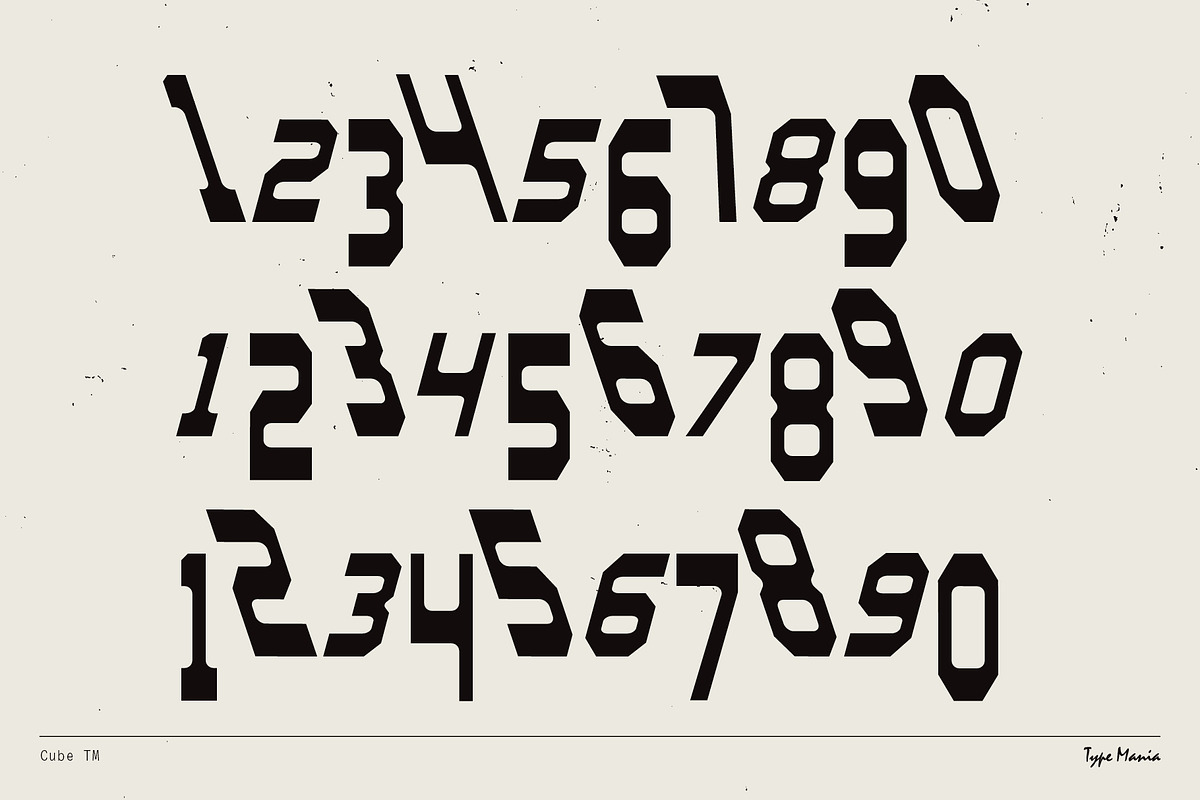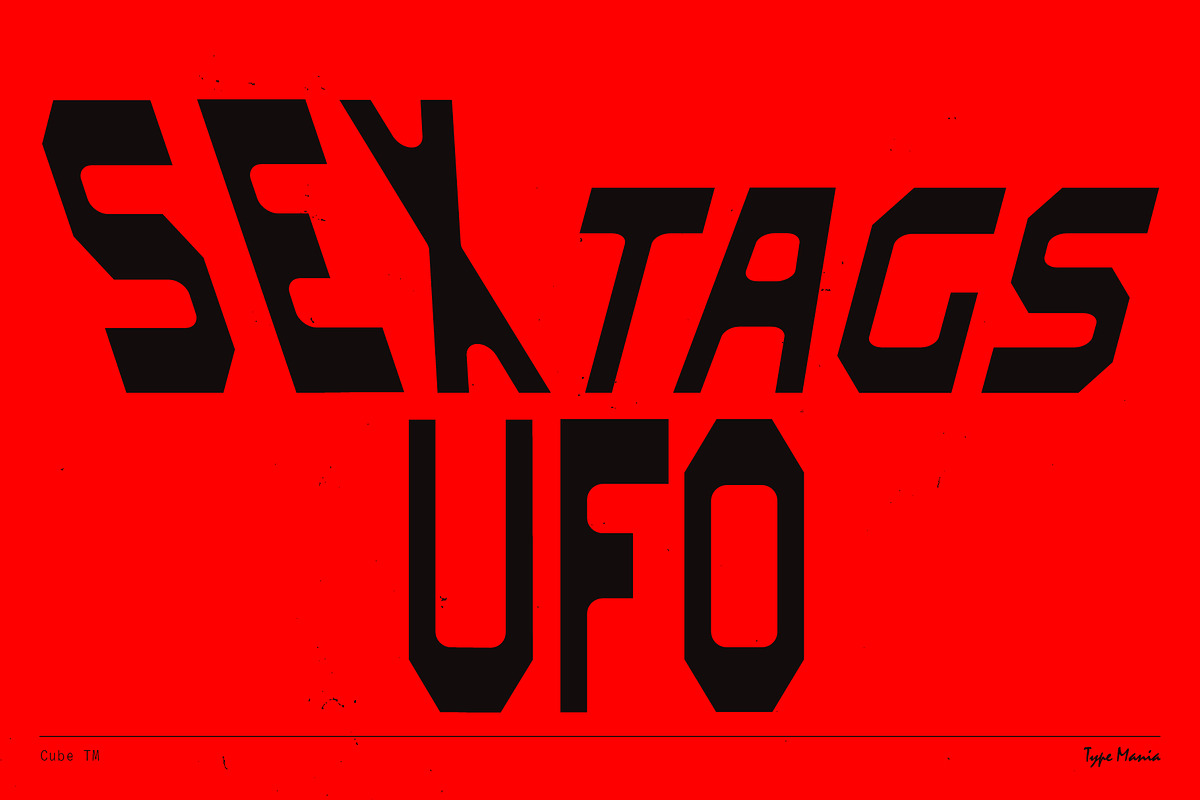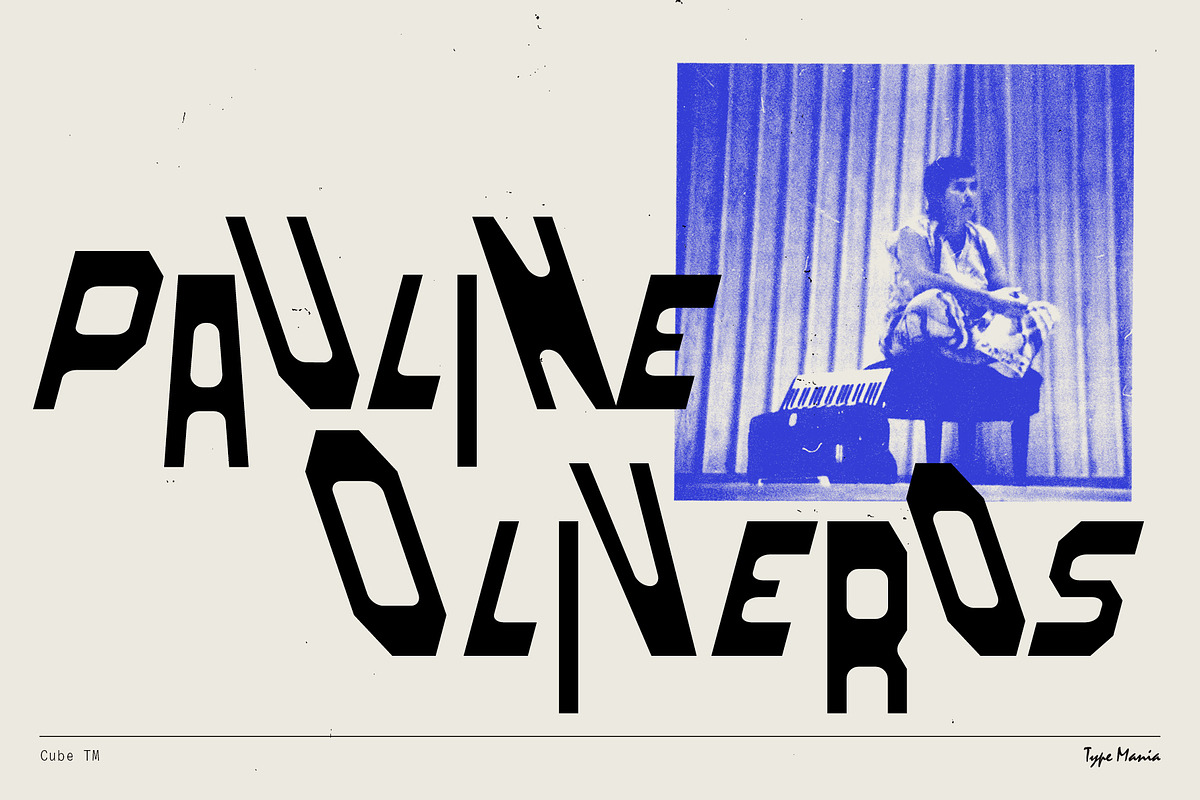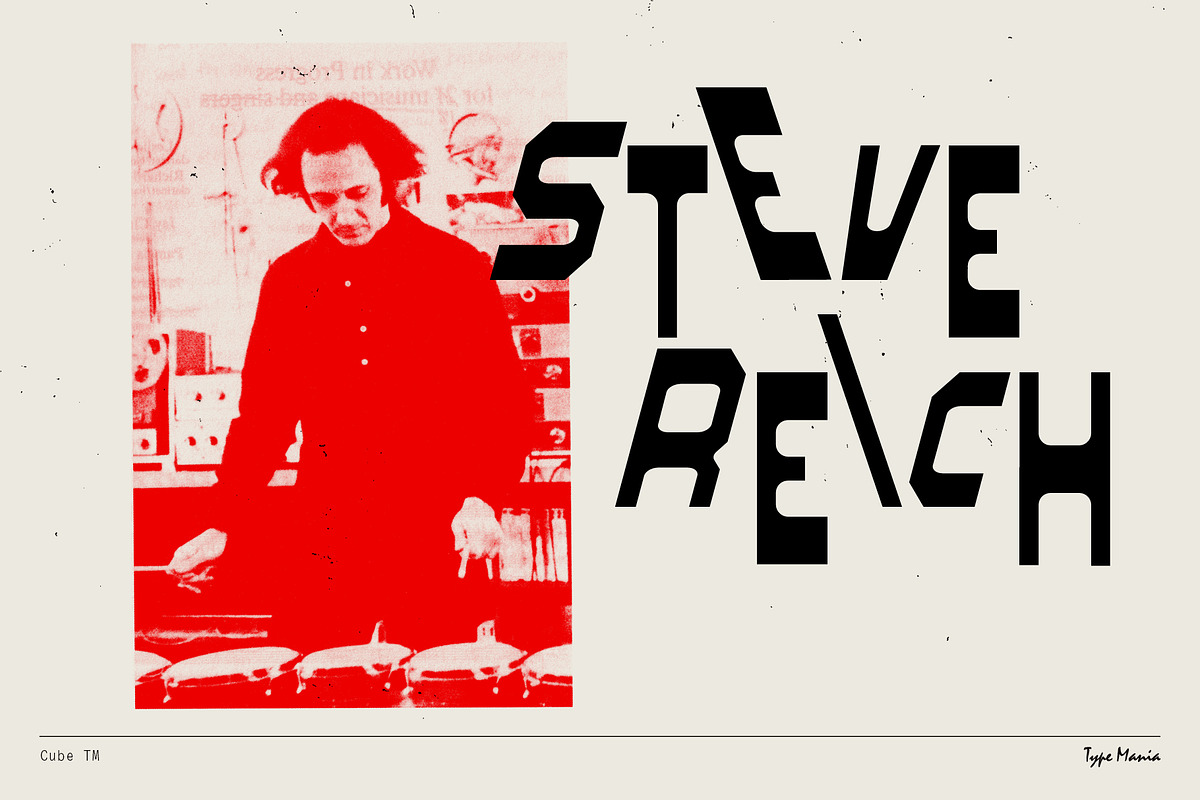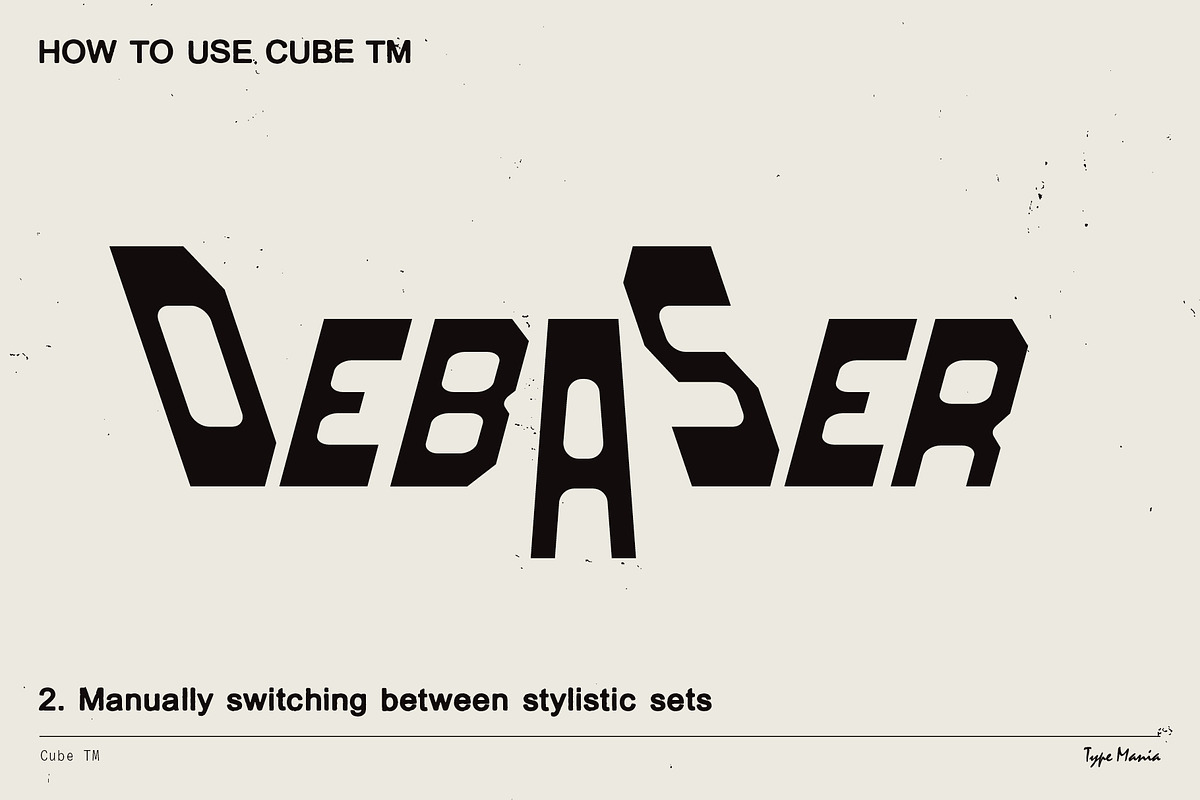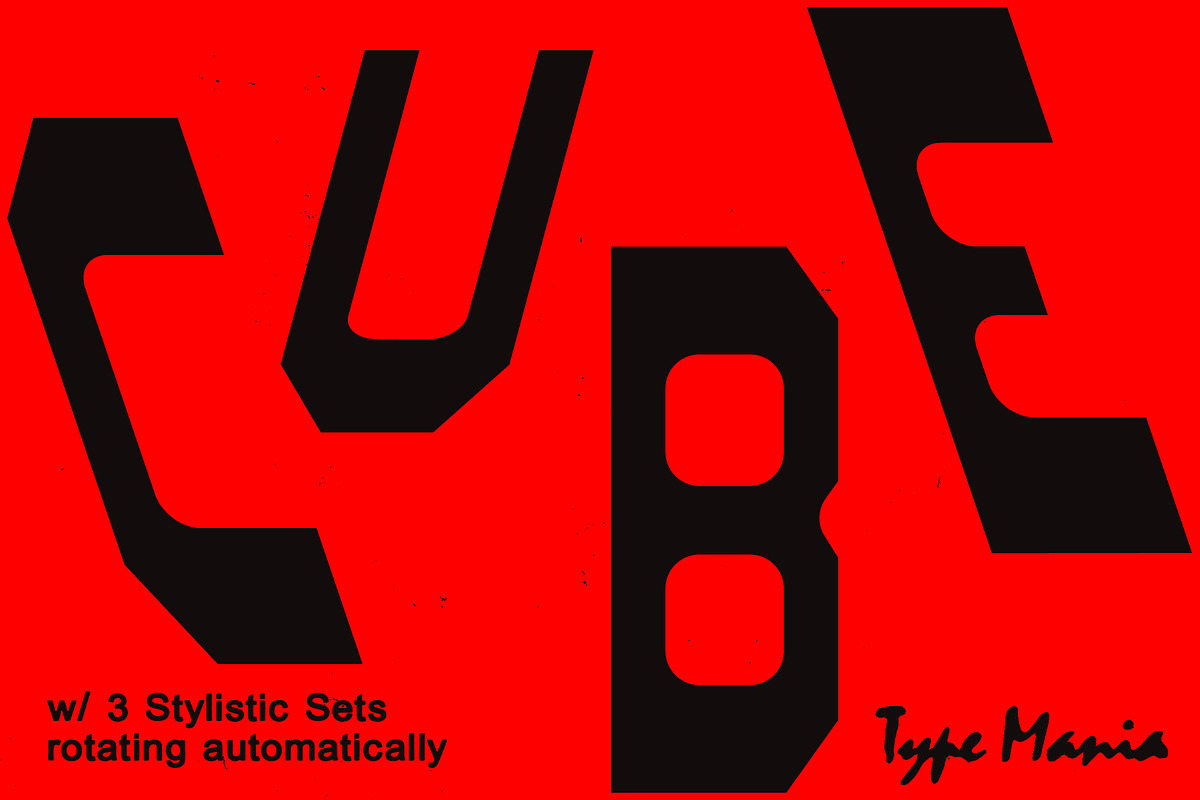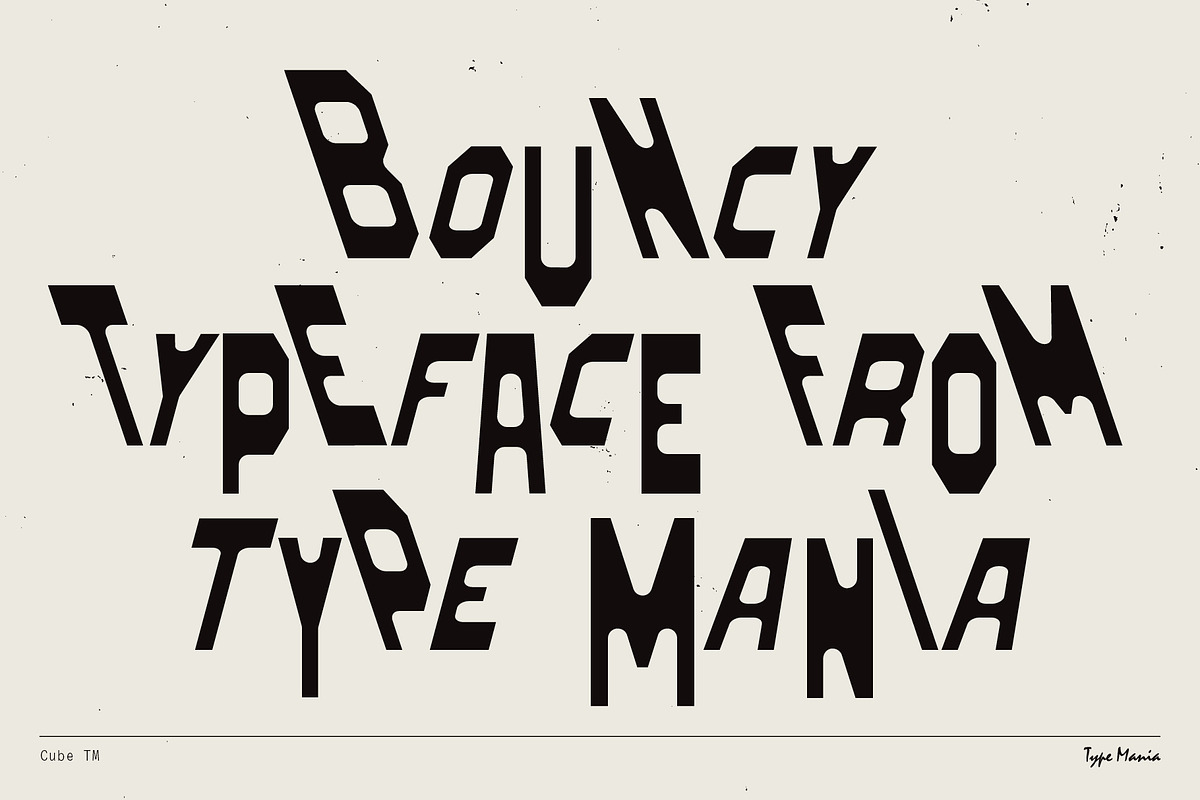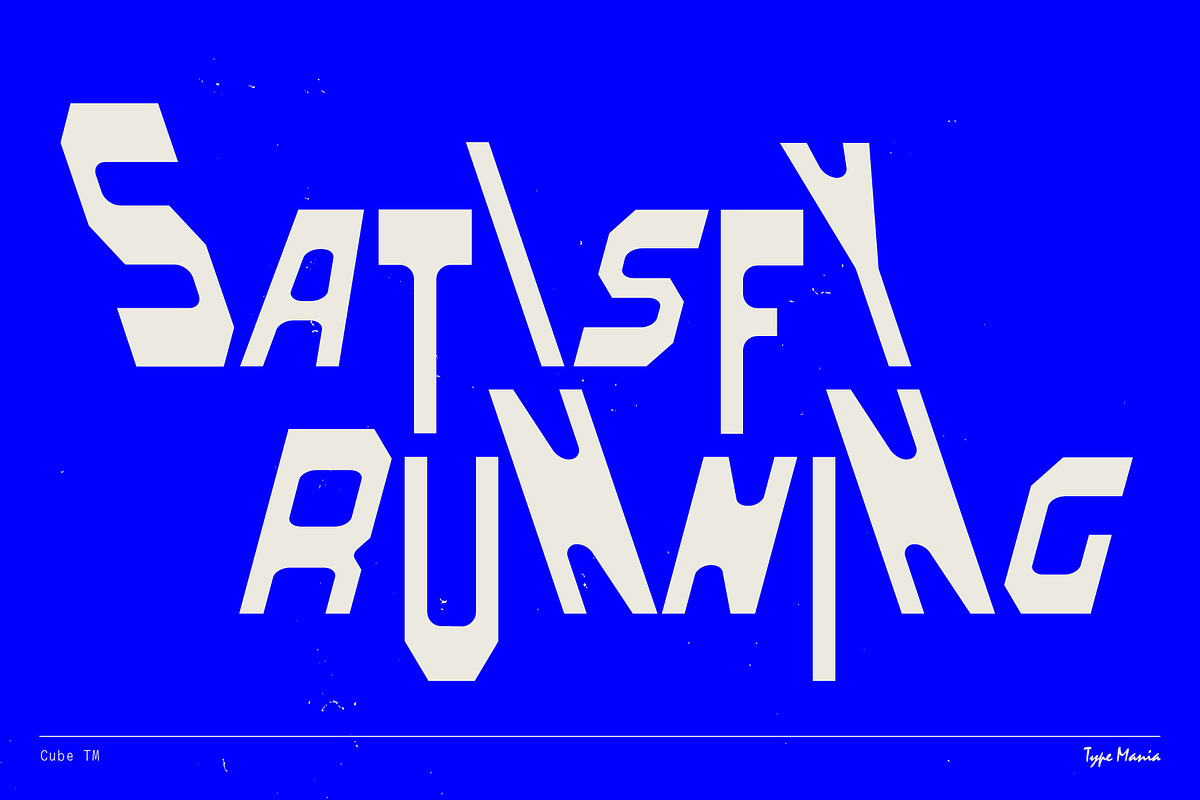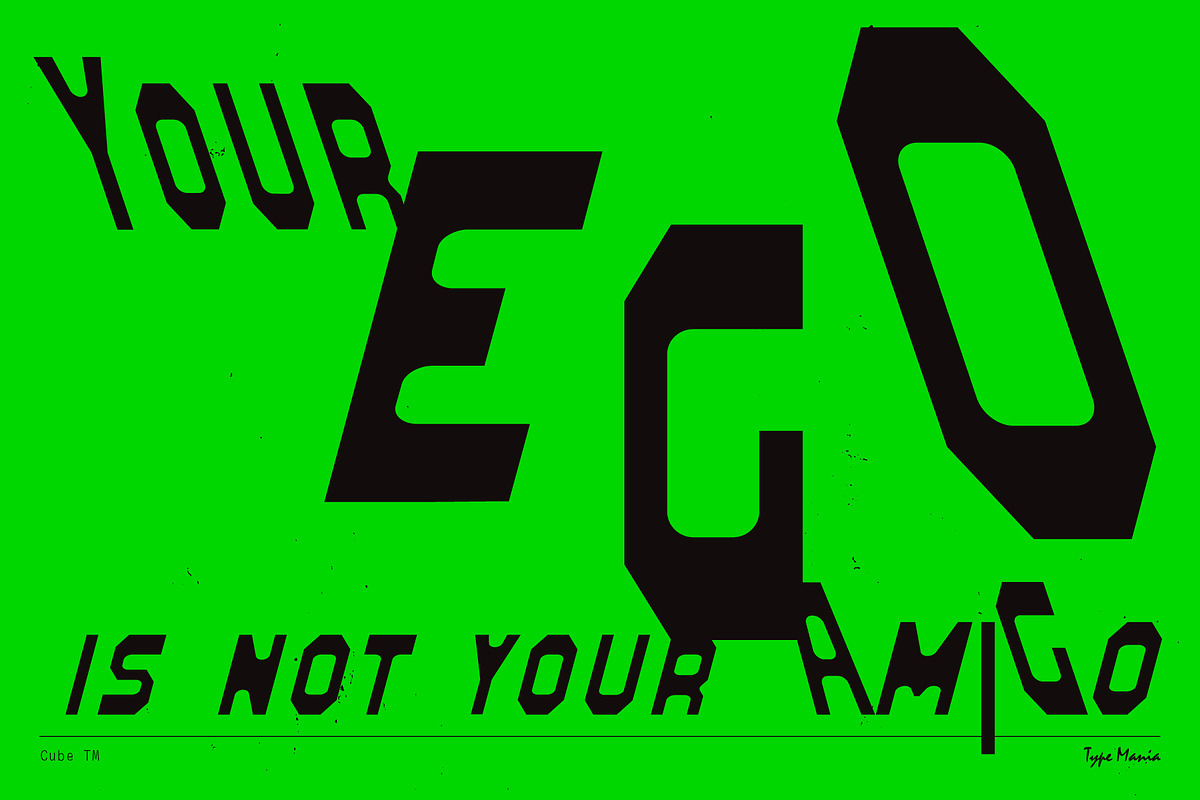
Cube TM – Bouncy Brutalist font
A brutalist font with a twist, Cube TM blends rigid forms with unexpected rhythm 🌀 It uses blunt shapes based on brutalism, with variation introduced through three alternating stylistic sets. The result is structured, but never static 🫡 See if it works for your project!
OpenType features
- 3 stylistic sets
- The font is programmed to automatically shift between the stylistic sets